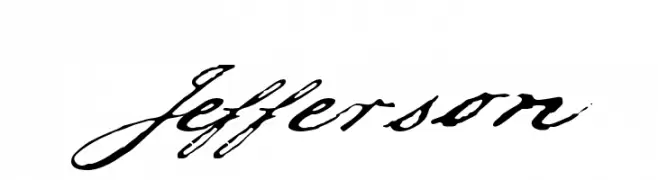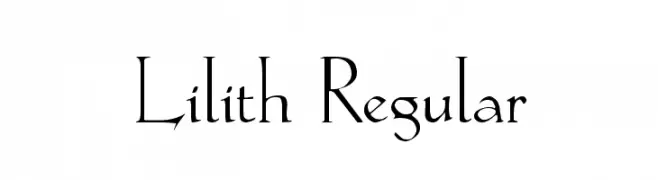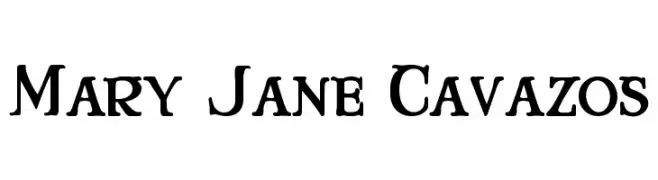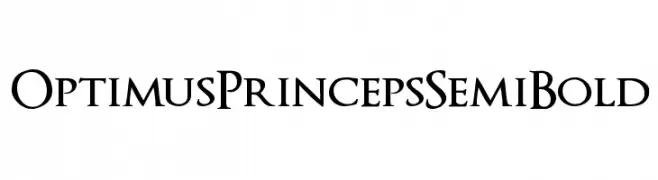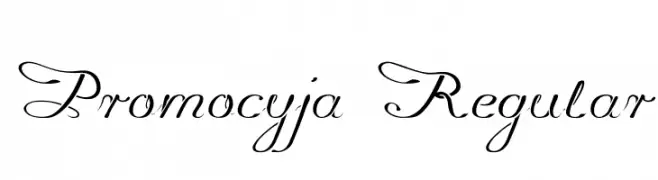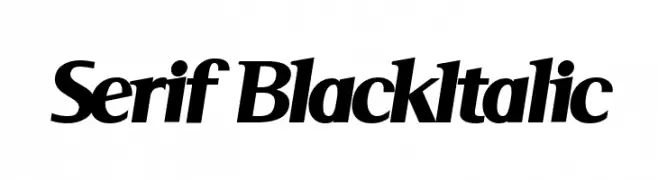
A bold, high-contrast serif font with elegant curves and a modern twist.
A classic serif font with elegant curves and a semi-bold weight, exuding sophistication.
A bold, italicized serif font with strong strokes and elegant curves.
A bold, high-contrast serif font with elegant curves and pronounced serifs.
A sophisticated serif font with sharp angles and elegant curves.
A dynamic, calligraphic font with sweeping curves and sharp terminals.
An elegant script font with intricate curves and decorative swashes.
A classic, elegant script font with flowing curves and intricate details.